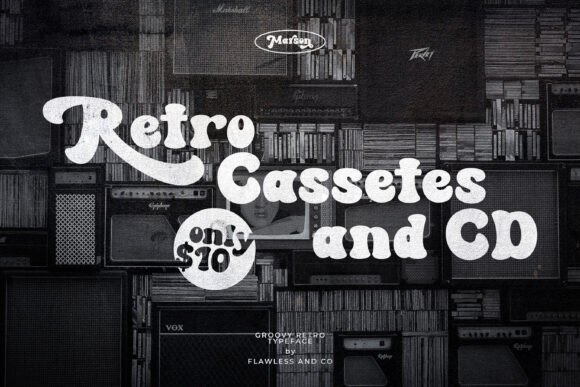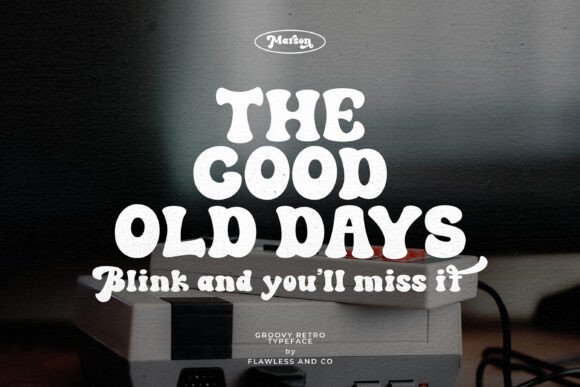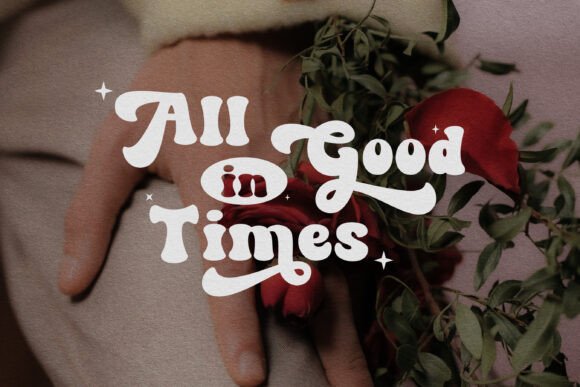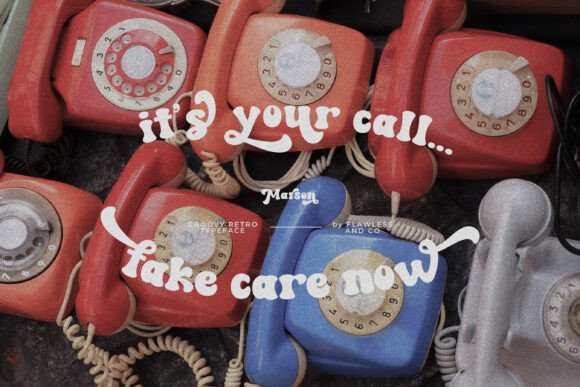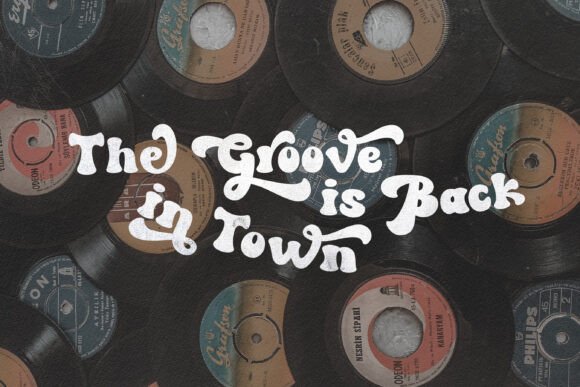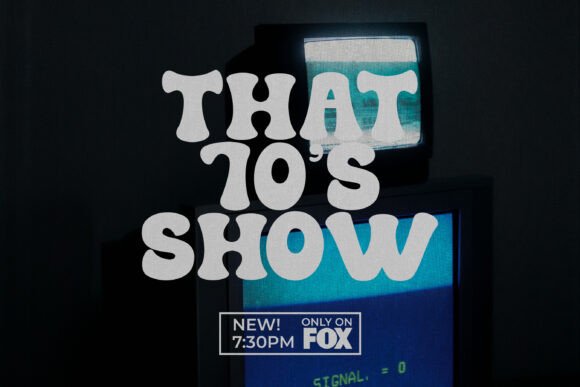
Introduction to Marson Font
Have you ever been stuck in the middle of a creative project, searching for the perfect font to give it that extra oomph? That’s where Marson Font comes in – a modern retro font that’s about to revolutionize your design game.
Imagine being able to craft a stunning logo, branding material, or magazine cover with a single click. With Marson Font, you can achieve just that. This high-quality design resource boasts various alternates and ligatures, making it perfect for creative projects that demand a unique touch.
Key Features of Marson Font
- High-quality design resource for creative projects
- Features a transparent background, ideal for use on any design
- Includes a wide range of characters and glyphs for professional use
- Designed for use in various design software, including Adobe Creative Cloud
- Perfect for logos, branding, and other creative projects requiring a unique font
Honest Review: Marson Font
I recently had the chance to try out the Marson Font for my latest design project. Overall, I’m impressed with the quality and versatility of this font.
- ✨ High quality design: The Marson Font has a crisp and clean look that’s perfect for any creative project.
- ✨ Transparent background: The transparent background option is a great feature that allows for seamless integration with other design elements.
- ⚠️ Limited character set: While the font has a wide range of letters and symbols, it’s not suitable for complex or technical writing.
- ⚠️ Not ideal for small text: The font’s bold lines can make it difficult to read in small text sizes.
Overall, I’m a fan of the Marson Font and would definitely recommend it for creative projects that require a high-quality, versatile font. Just keep in mind its limitations, and you’ll be all set for a beautiful design.
Tips for Getting the Most Out of Marson Font
Experiment with different font sizes, colors, and styles to find the perfect combination for your project. You can also use the Marson Font in combination with other design elements to create a unique and eye-catching look.
The Marson Font is ideal for a variety of creative projects, including logos, business cards, brochures, and social media graphics. Its high-quality design and transparent background make it a versatile and effective design resource.
Does Marson Font have a transparent background?
Yes, the Marson Font has a transparent background, making it perfect for use in designs that require a high level of design flexibility. The transparent background allows designers to easily combine the font with other design elements, such as images or other fonts, to create a unique and visually appealing design.